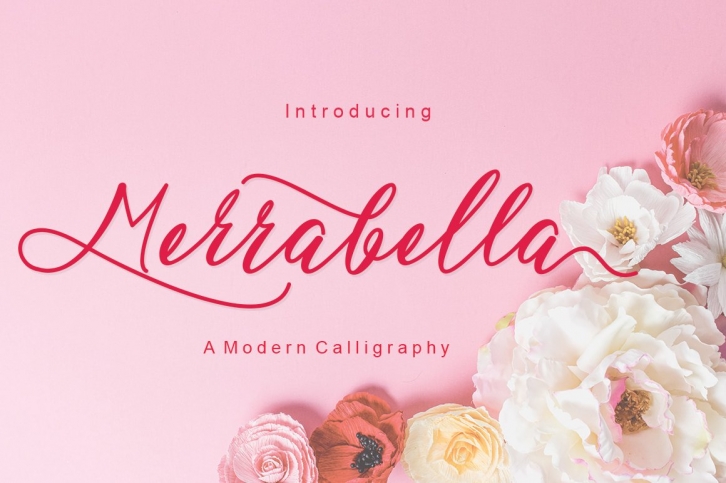
Merrabella is a trendy and unique font with an authentic style. It was designed by JoeCreative and it's a great choice for creative people who need such a font. It was released on July 17, 2020 and the file size is 20.55 MB. Merrabella will add an organic vibe to any design idea!